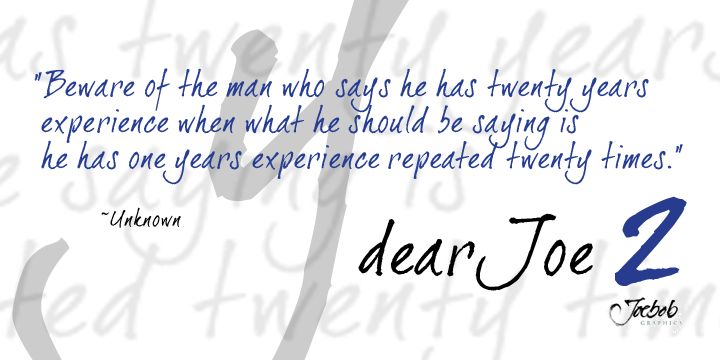
dearJoe 2
Designed by: Jeroen “Joebob” van der Ham
Designed when: 2002-09
Contained in Categories: Decorative & Display, Script
dearJoe 2
DearJoe 2 is the second of four handwritten scripts by JOEBOB graphics.
A complete character set with numbers and most (but not all) special signs.